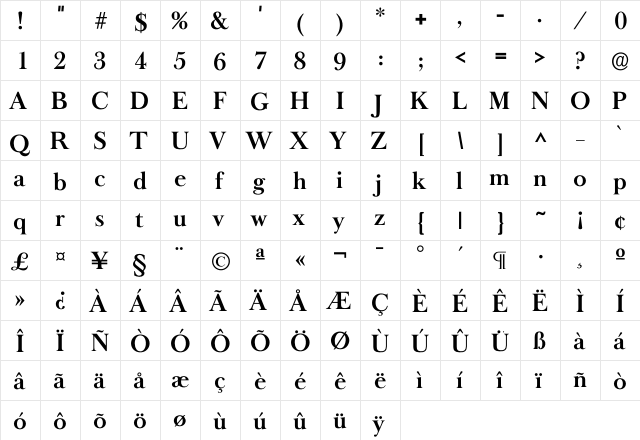
Oldbasker DemiBold
Design Context for Oldbasker Typeface
Oldbasker takes a measured approach to typography — its balanced proportions and neutral character make it a reliable workhorse for both digital and print work. The heavy weight commands attention and anchors typographic hierarchies.
Pro Tip: Pair Oldbasker with a font of contrasting weight or personality to build a more expressive typographic hierarchy.